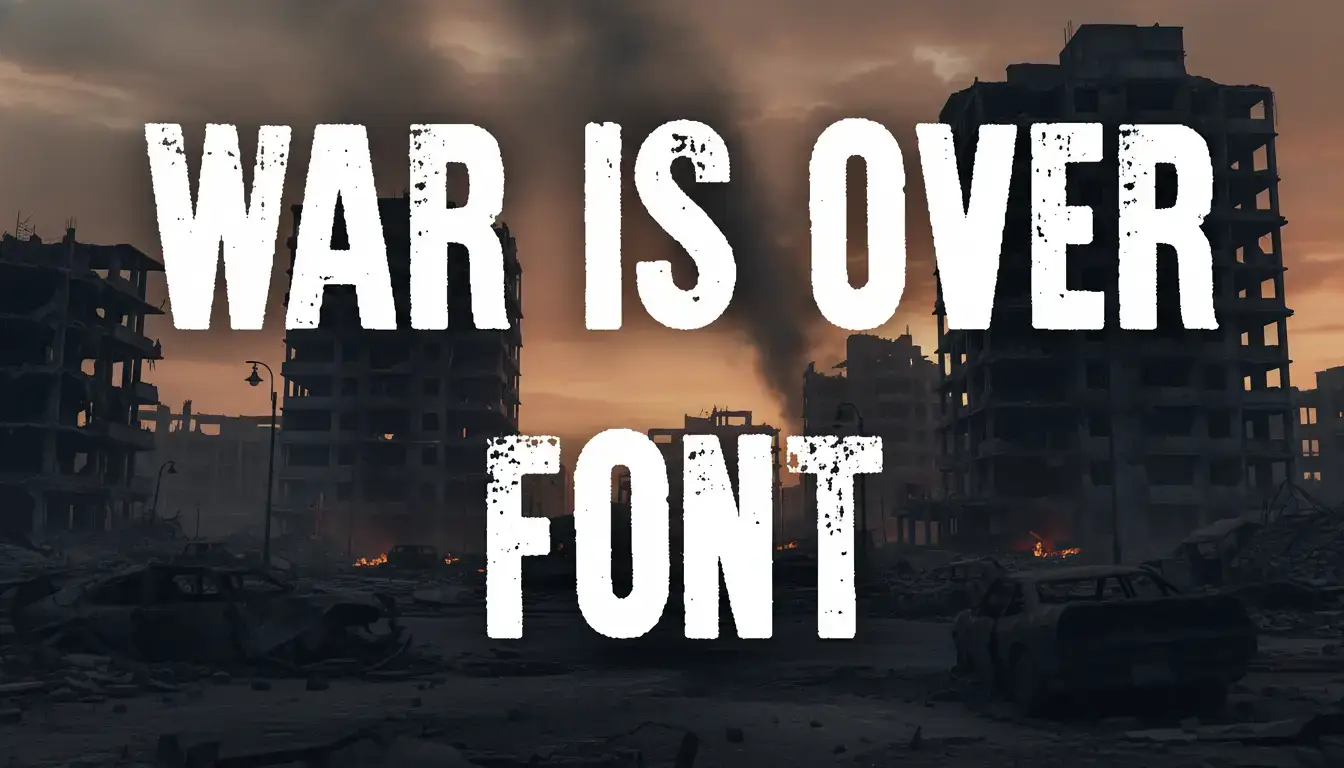
WAR IS OVER FONT
WAR IS OVER is a fancy font created by IMAGEX. It's a decorative display font with plenty of personality, made to grab attention. It's a free download, and you can try it with your own text in the preview above first.
WAR IS OVER covers the full alphabet in upper and lowercase, plus all ten numbers, so you can set names, dates and prices without switching fonts. Common punctuation such as &, !, ? and @ is included as well. It also has the accented letters you need for Spanish, French, German, Portuguese and Italian.
Designers usually reach for fonts like WAR IS OVER when they're making posters, logos and eye-catching headlines. Use it for one standout word or headline and let simpler fonts handle the rest.
Yes. WAR IS OVER includes the accented letters needed for Spanish, French, German, Portuguese and Italian, so it works for more than just English.